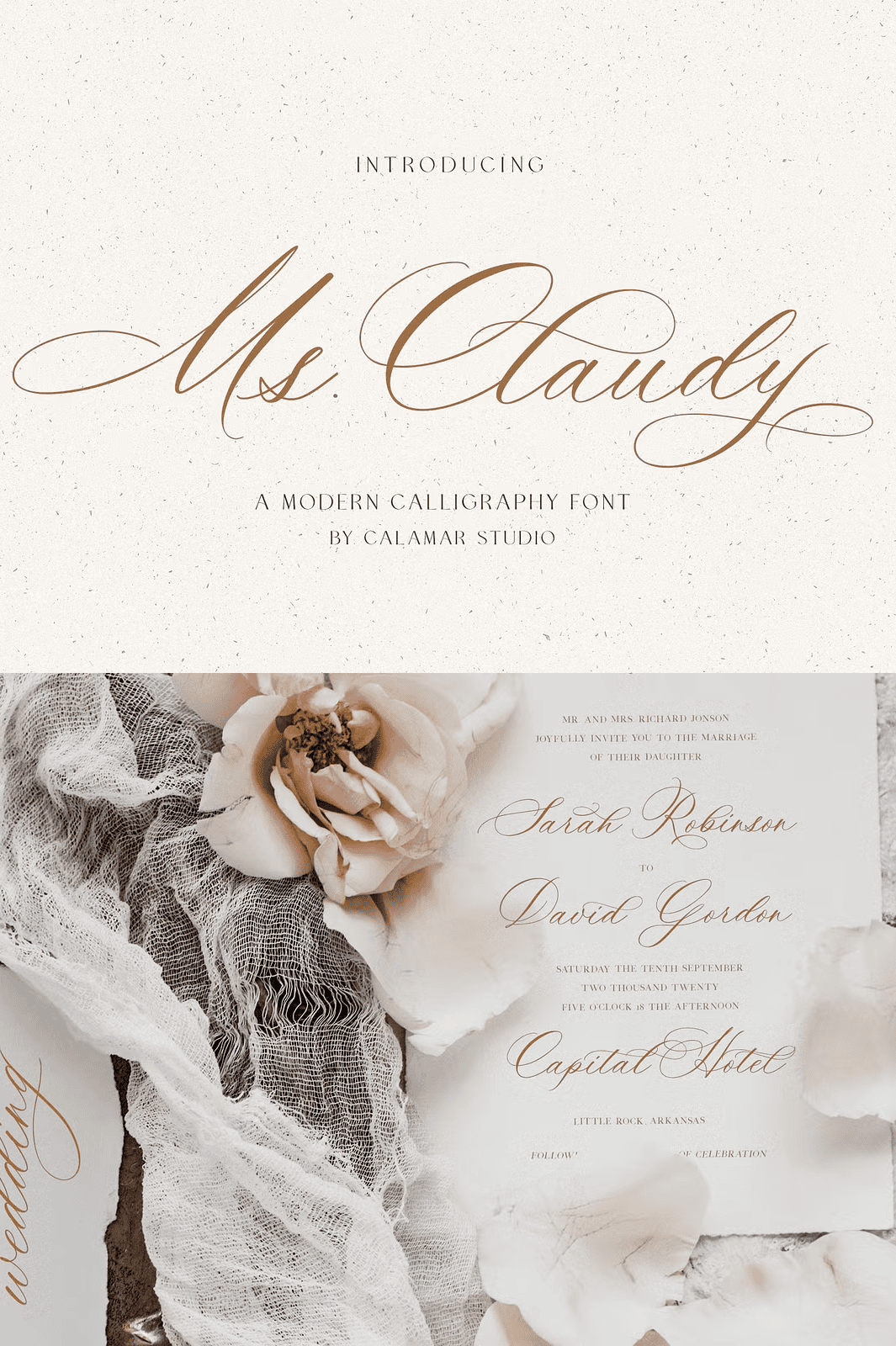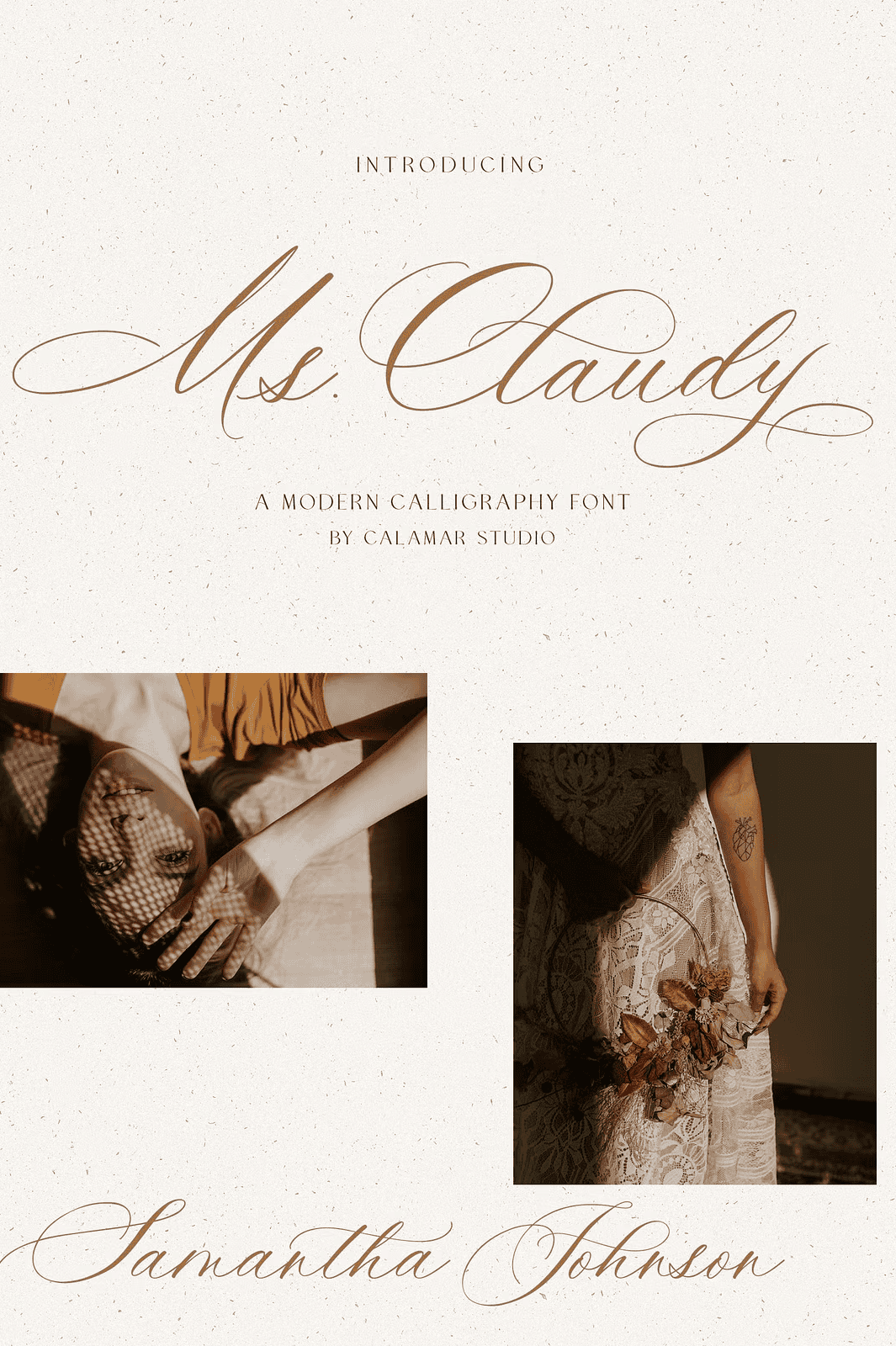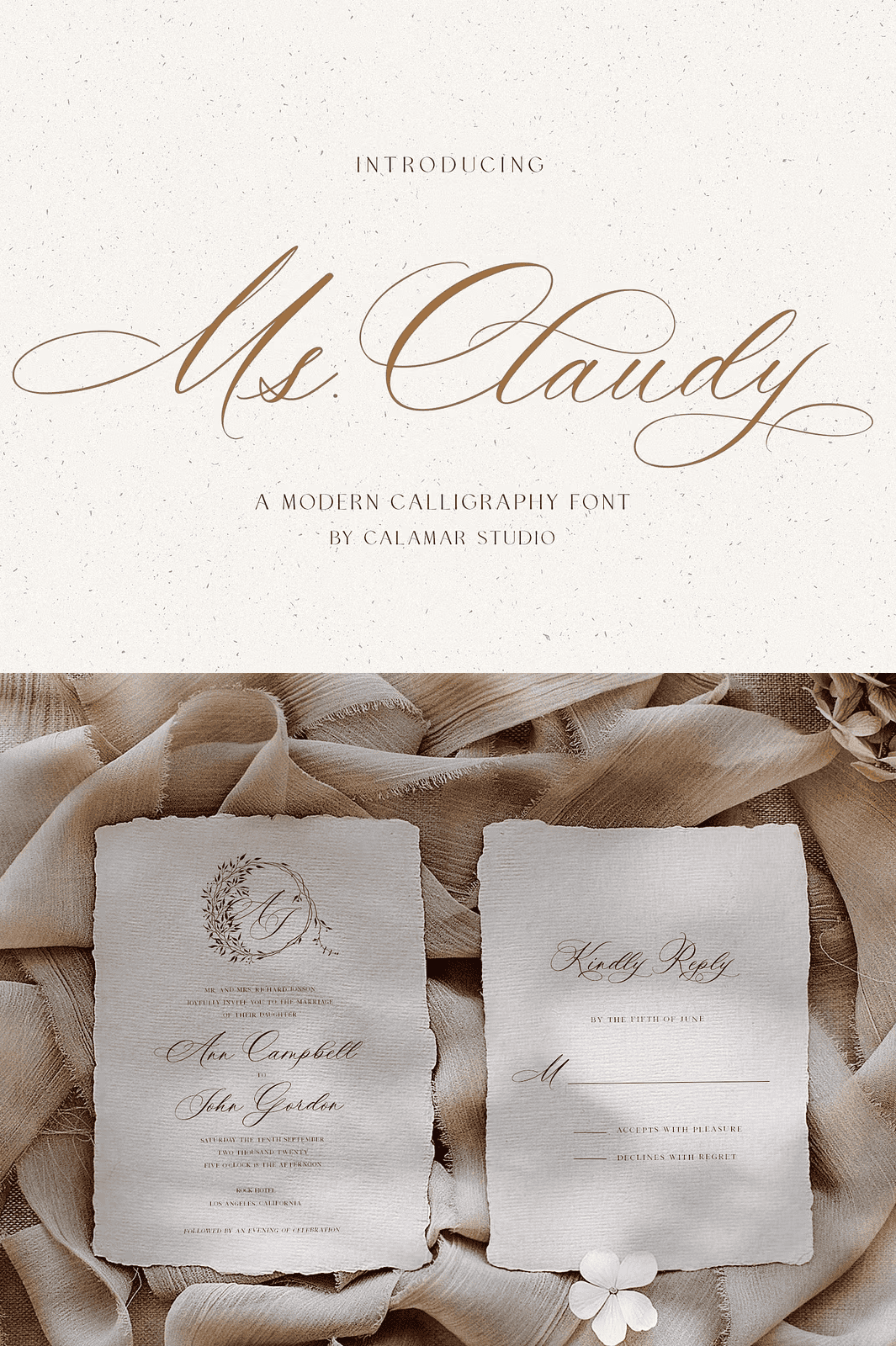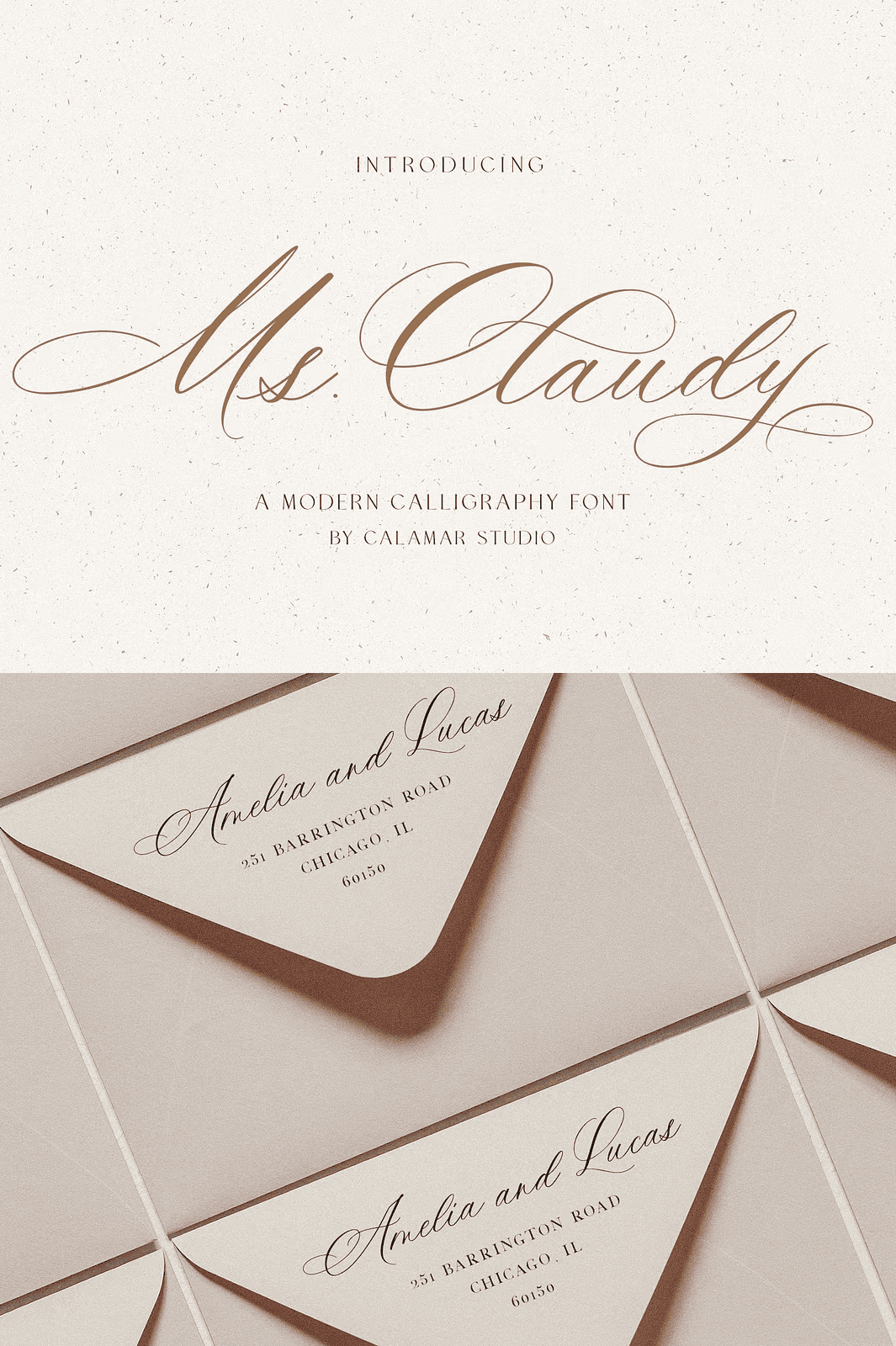
Ms Claudy | Wedding Calligraphy Font
Elevate Every Invitation and Brand with Timeless Script Grace
Capture the essence of sophistication and style with **Ms Claudy**, a groundbreaking modern calligraphy font that commands attention in any creative endeavor. Designers and creators actively seek this font to infuse their work with an air of refined beauty, making it the go-to choice for projects demanding both elegance and contemporary flair. Whether you craft wedding invitations that whisper romance or build feminine branding that exudes confidence, Ms Claudy delivers unparalleled versatility and charm.
This script font reimagines traditional calligraphy through a fresh, modern lens, ensuring your designs stand out with effortless poise. Professionals across industries turn to Ms Claudy to breathe life into their visions, transforming simple text into captivating narratives that resonate deeply with audiences.
Unlock a Complete Arsenal of Characters and Features for Authentic Expression
Ms Claudy empowers you with a full spectrum of typographic tools, starting with comprehensive uppercase and lowercase basic characters that form the foundation of every word. Numerals and punctuation integrate seamlessly, allowing you to construct flawless compositions without compromise.
Dive deeper into its advanced capabilities: ligatures connect letters with fluid precision, while an extensive collection of stylistic alternates lets you replicate the organic flow of natural handwriting. Experiment with these elements to customize your output, ensuring each project reflects your unique artistic intent. Preview all alternates to witness how they elevate ordinary text into extraordinary artistry.
Support extends to Western European, Central European, and South Eastern European languages, broadening your reach to diverse global audiences. Test compatibility directly by inputting your text—Ms Claudy handles accented characters and special symbols with ease, making it indispensable for international designs.
Ideal Applications That Showcase Ms Claudy’s Versatile Power
Ms Claudy thrives in scenarios where elegance meets functionality. Wedding planners and event coordinators select it to design invitations that enchant guests from the first glance, while save-the-date cards gain a personal touch that builds anticipation. Feminine branding experts leverage its curves to craft logos and marketing materials that embody empowerment and grace.
Extend its influence to:
– **Bridal Stationery Suites**: Create cohesive sets for programs, menus, and thank-you notes that maintain thematic harmony.
– **Luxury Product Labels**: Apply the script to packaging that conveys premium quality and artisanal care.
– **Editorial Headlines**: Use in magazines or blogs to draw readers into stories with stylistic allure.
– **Social Media Graphics**: Enhance posts with handwritten warmth that fosters engagement and connection.
– **Corporate Identity Elements**: Infuse business cards and letterheads with subtle sophistication for memorable impressions.
No matter the medium, Ms Claudy adapts dynamically, amplifying your message with professional polish.
Why Ms Claudy Outshines Competitors in Elegance and Functionality
Designers praise Ms Claudy for its ability to blend modernity with classic appeal, offering more than just letters—it provides a complete expressive system. The ligatures and alternates save hours of manual adjustments, while multi-language support eliminates barriers in collaborative projects. Its clean lines ensure scalability from tiny icons to large banners, maintaining legibility and impact.
Compared to standard fonts, Ms Claudy injects personality and flow, turning static designs into dynamic experiences. Clients notice the difference, often requesting it specifically for its authentic calligraphy vibe. Invest in Ms Claudy to future-proof your portfolio against fleeting trends.
From Inspiration to Execution: How Ms Claudy Fuels Creative Success
Imagine launching a bridal collection where every detail radiates romance—Ms Claudy makes this reality by providing the typographic backbone. Authors and publishers incorporate it into book covers and chapter titles, enhancing readability with stylistic depth. Marketers deploy it in campaigns to evoke emotion, driving conversions through visual storytelling.